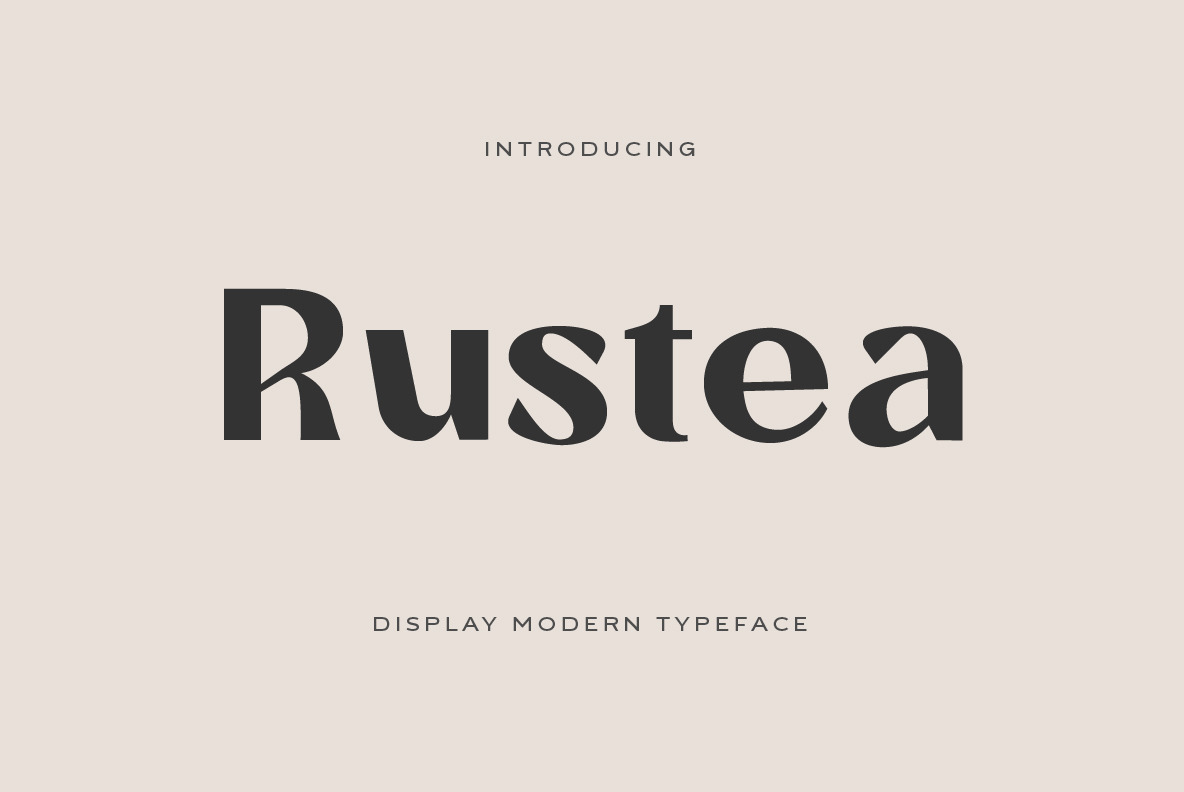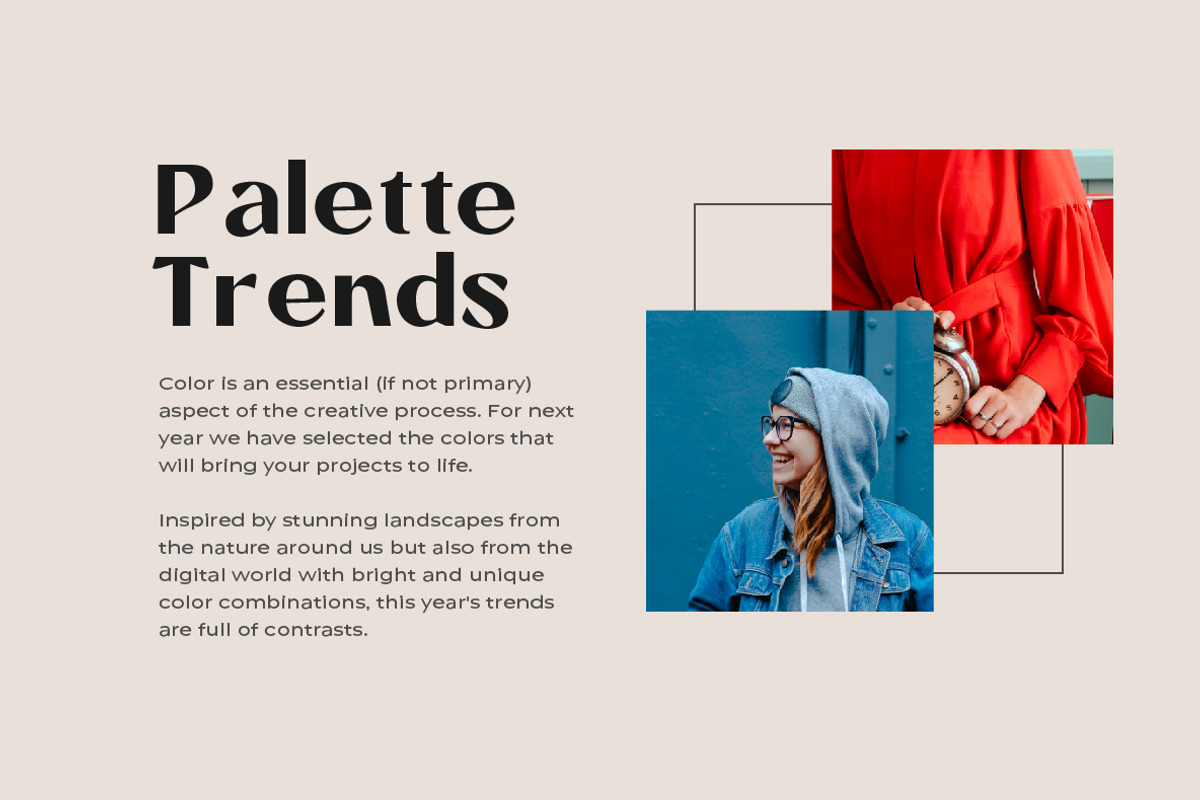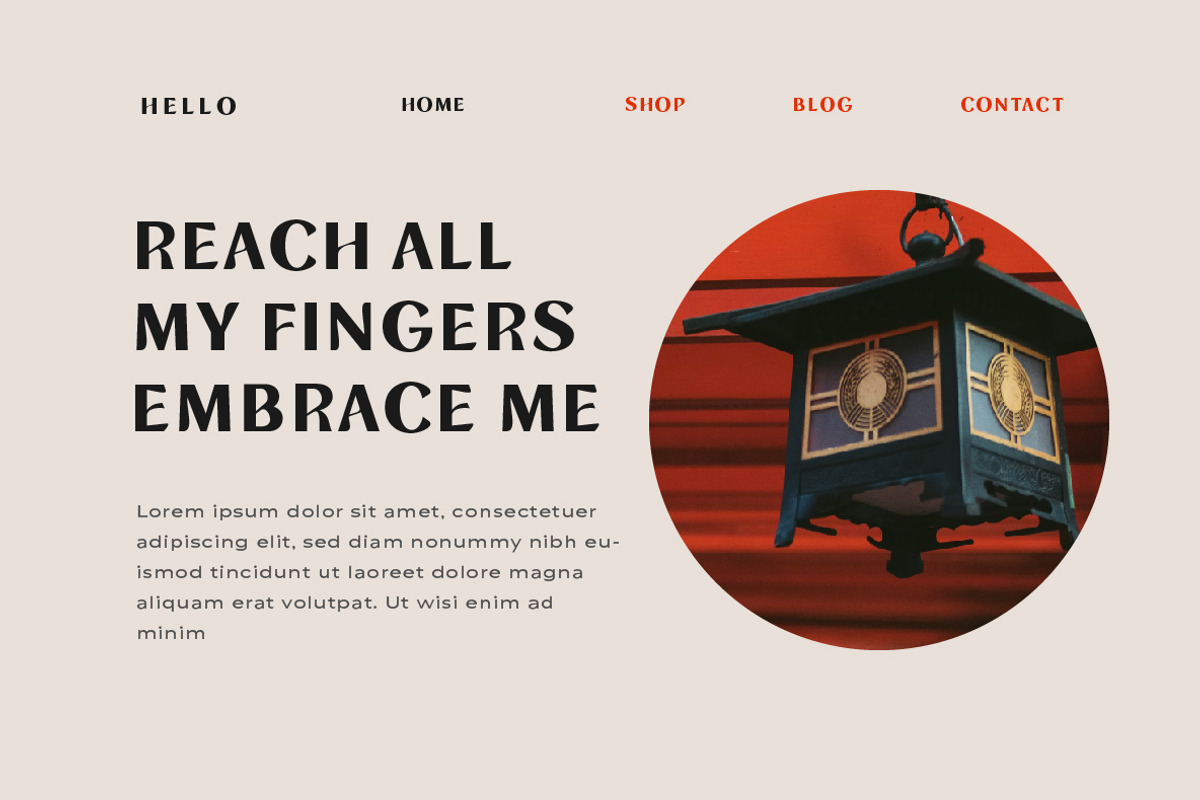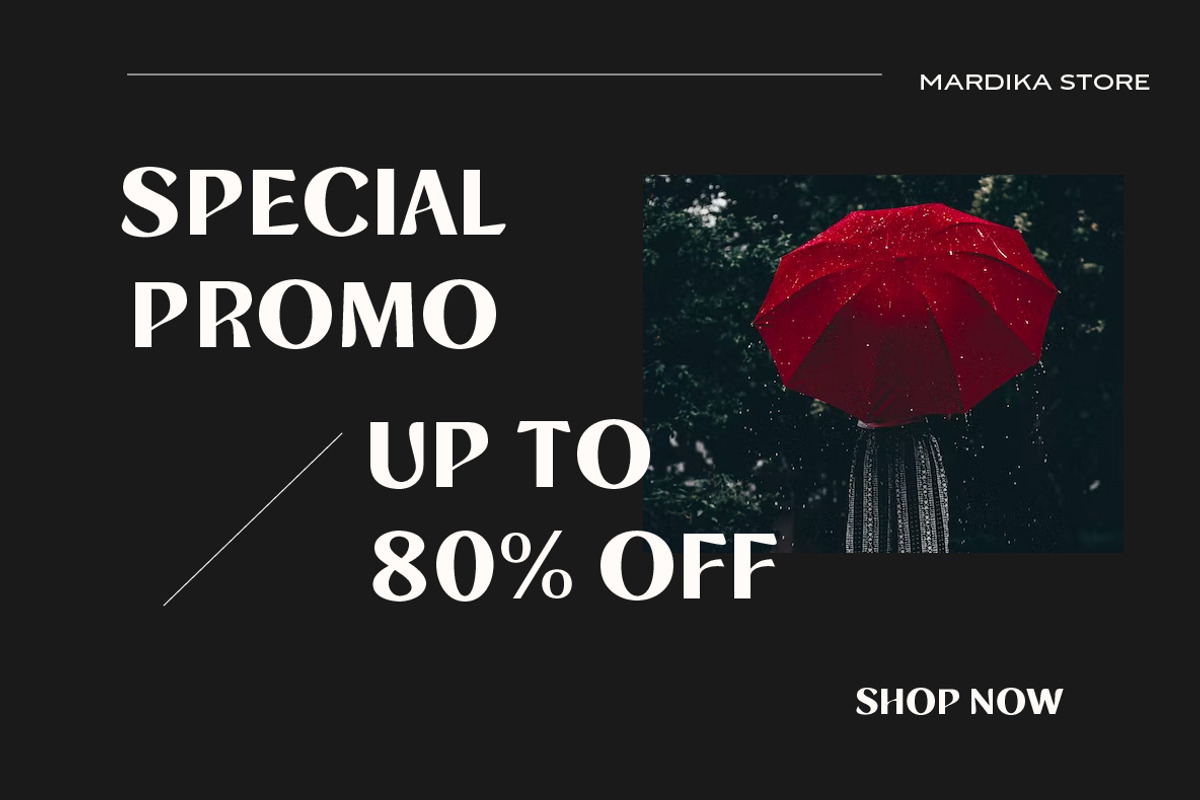
Rustea Display Fonts
If you are looking for a typeface that is both different and stylish, Rustea is a perfect choice. With its combination of modern and vintage curves, this typeface is perfect for creating eye-catching designs that will stand out from the crowd.
- Multilingual support and complete character set
- Support for 31 languages